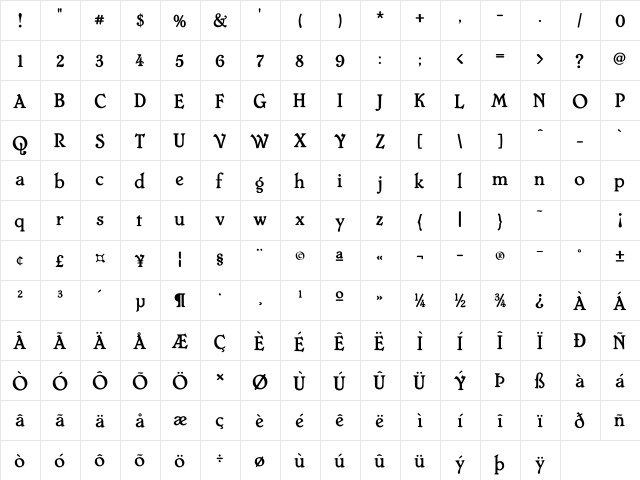
Mops Medium
Design Context for Mops Typeface
Mops offers clean, dependable letterforms without strong stylistic allegiance, making it a practical choice for designers who need flexibility.